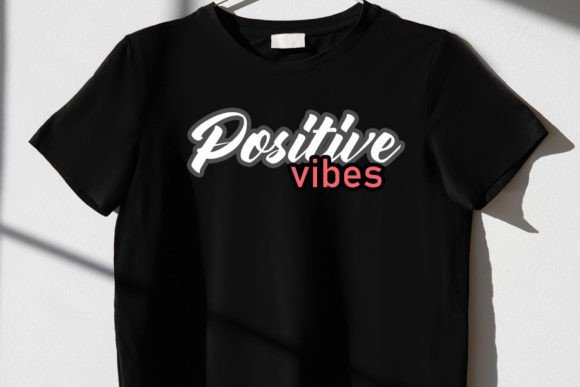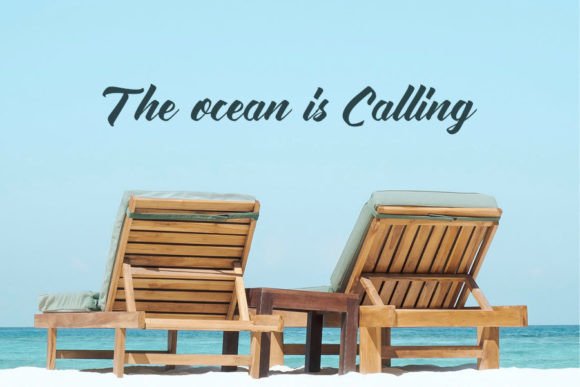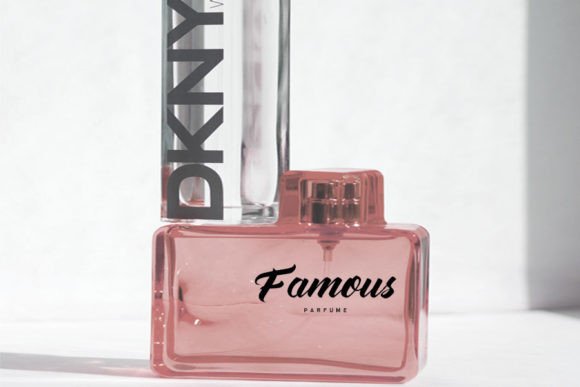
Unlock Your Creativity with the Breakthrough Font
Have you ever stared at a blank canvas, waiting for inspiration to strike? For many creatives, it’s that moment when everything comes together – the perfect combination of colors, shapes, and typography. For you, it might be the moment you discover the perfect font to elevate your design. Introducing the Breakthrough Font, a magical script font that’s about to revolutionize the way you think about typography.
| 👤 Author | Leontyn Art |
This elegant font is designed to bring out the artist in you, whether you’re crafting a stunning Instagram post or creating a beautiful calligraphy script for your next DIY project. With the Breakthrough Font, the possibilities are endless, and your creativity will soar. As a designer, you know how crucial the right font can be in making your vision come alive. That’s why the Breakthrough Font is a valuable addition to any design toolkit, giving you the freedom to push the boundaries of your creativity.
Breakthrough Font Key Features
- Unique Character Set: Breakthrough Font features a unique character set that includes a wide range of symbols, glyphs, and ligatures, making it suitable for use in creative and artistic applications.
Breakthrough Font Review
Overall, I’d say the Breakthrough Font is a decent addition to any designer’s toolkit. ✨ The clean and modern design gives it a sleek look that would work well for contemporary branding and marketing materials. ✨ The font’s versatility allows it to be used in a variety of contexts, from headings to body text.
Here are some of its notable strengths:
- Highly legible, even at smaller font sizes ✨
- Extensive language support, including multiple scripts and languages ✨
- Available in a range of weights and styles, from light to bold ✨
However, there are a few limitations that prevent me from giving it a glowing review:
- It may not be suitable for complex, multi-line text due to its condensed nature ⚠️
- The font’s lack of bold and italic variants may limit its usability in certain situations ⚠️
- The font’s size and spacing can be inconsistent, particularly when used in conjunction with other fonts ⚠️
Overall, I’d recommend the Breakthrough Font for designers who need a modern, clean font for straightforward text and branding applications. However, it may not be the best choice for complex or highly stylized projects.
To get the most out of the Breakthrough Font, try using it in bold or italic styles to add emphasis to your text. You can also use the font in combination with other fonts to create a unique and visually appealing design.
The Breakthrough Font is commonly used in modern designs, such as:
Alternatives to Breakthrough Font
Comparison to Breakthrough Font: Open Sans is more versatile and has a wider range of font weights, making it a better choice for complex designs. However, Breakthrough Font has a more unique and distinctive feel.